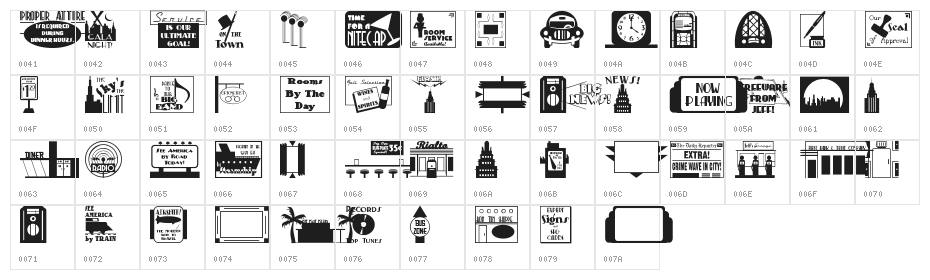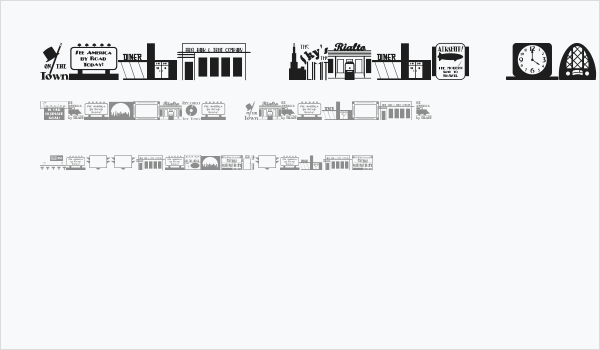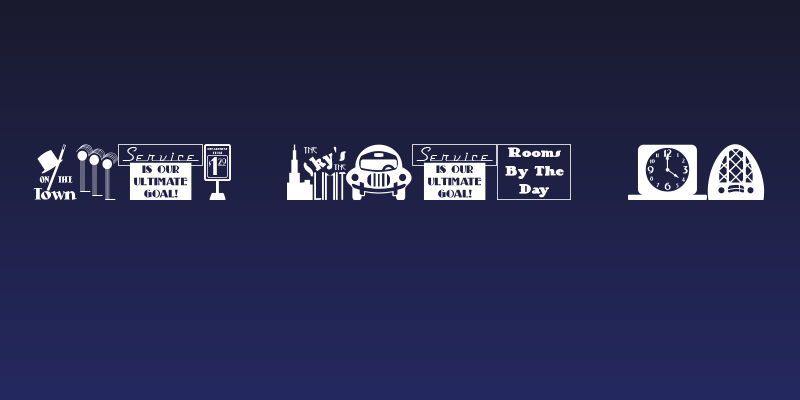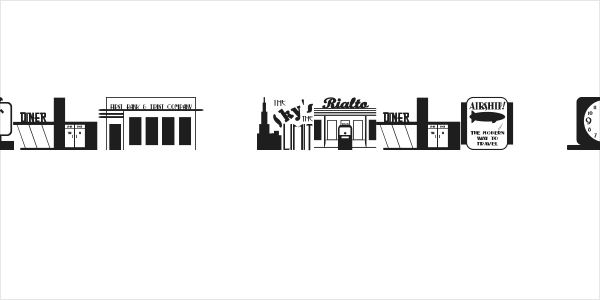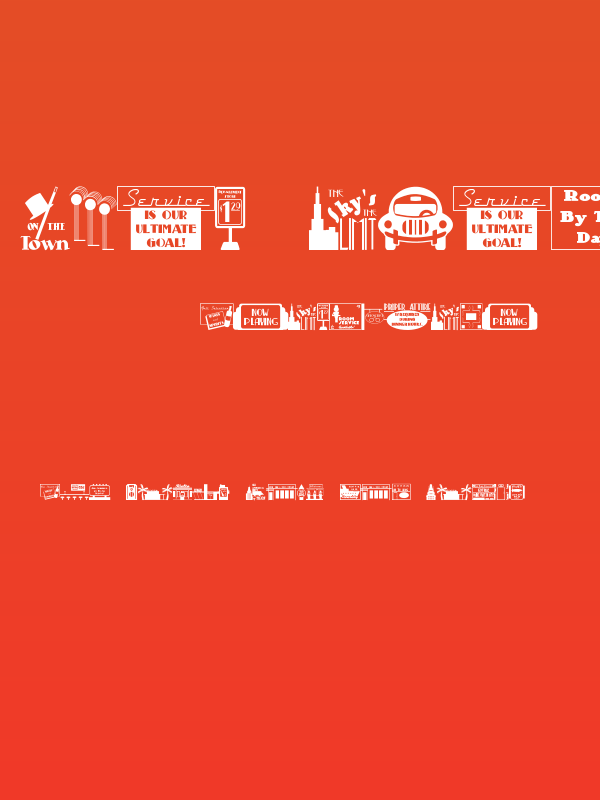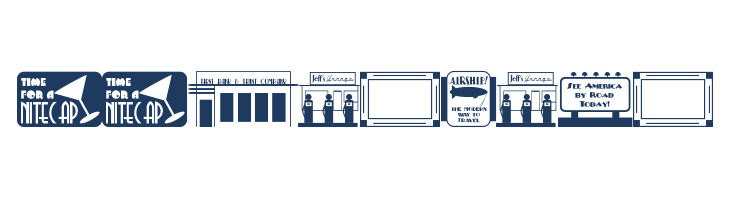
Deco Pics JL Font
Deco Pics JL Description
This is a decorative font that captures the essence of vintage signage and advertisements, reminiscent of the early to mid-20th century. The characters are not traditional alphabetic letters but rather a collection of iconic images and text snippets that evoke a sense of nostalgia and retro charm. Each character is a unique illustration, ranging from classic diner signs to old-fashioned radio logos, and even vintage movie theater marquees. The style is bold and graphic, with a strong emphasis on black and white contrast, making it ideal for creating a striking visual impact. The font is perfect for projects that aim to capture a retro or nostalgic feel, such as themed event posters, vintage-inspired branding, or creative design projects that require a touch of historical flair.
| Use Case | Logos, Headlines, Decorative elements |
| Proposed Projects | Ideal for retro-themed posters, vintage branding, creative design projects, and nostalgic event promotions. |